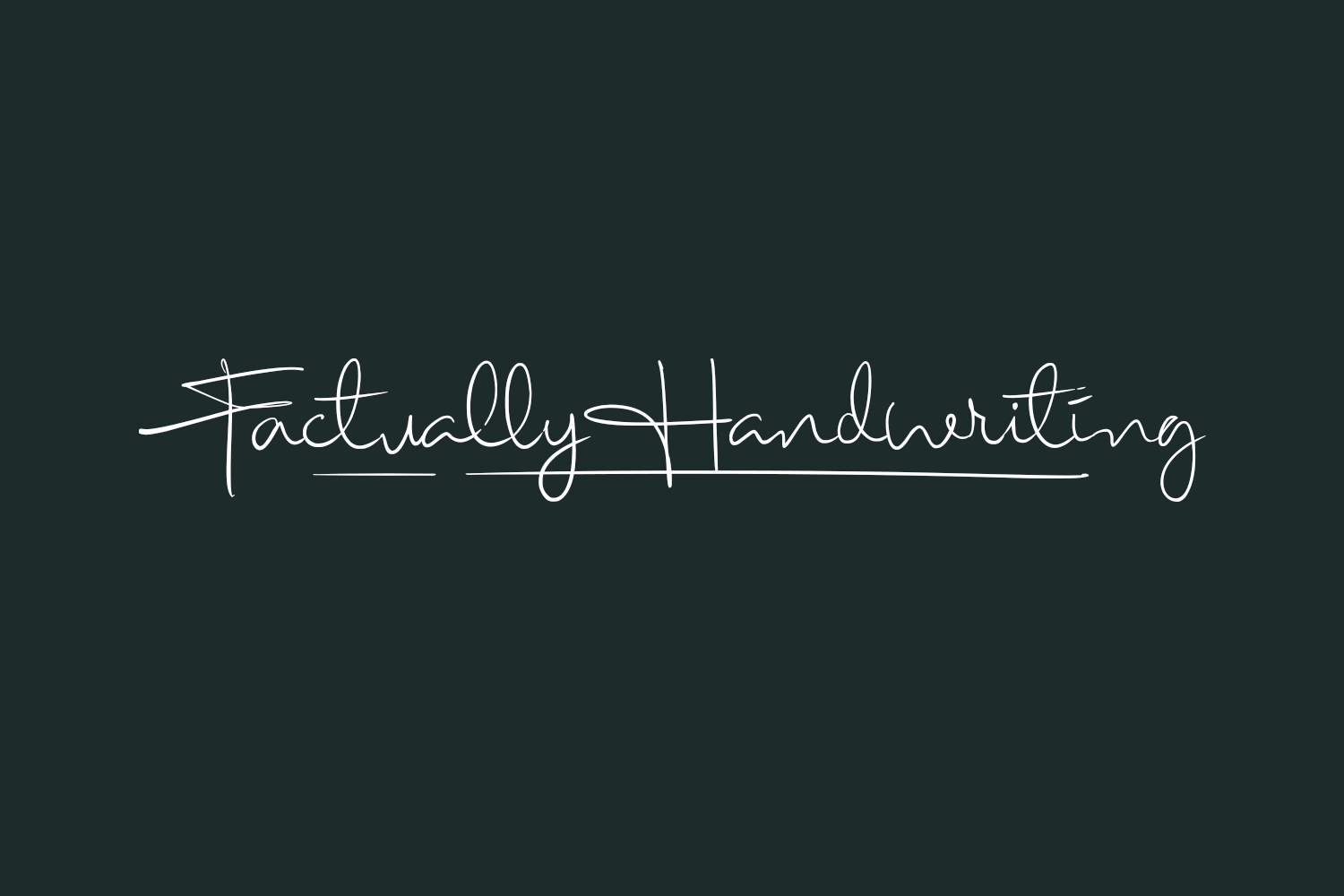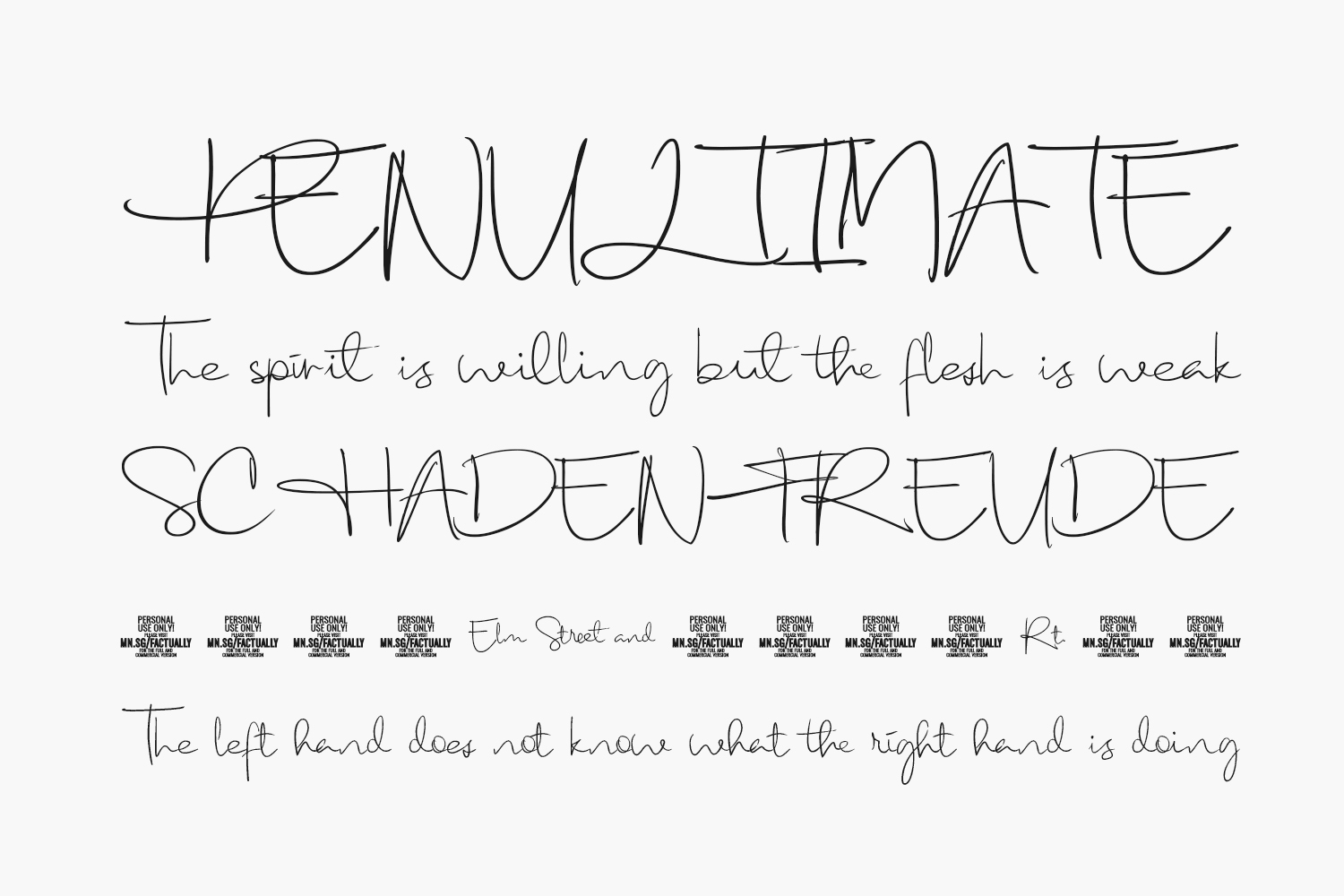
Factually Handwriting Free Font is a typeface designed to resemble natural, handwritten text. It is a sans-serif font with a clean and modern look that is easy to read. The font was created to give a sense of authenticity to written documents while still maintaining a professional appearance. It is available for free download and use, making it an excellent choice for personal and commercial projects that require a handwriting-style font. Factually Handwriting Free Font is versatile and can be used in a variety of contexts, including print and digital media. Its legibility and readability make it an excellent choice for titles, captions, body text, and other typographical elements in a wide range of designs.